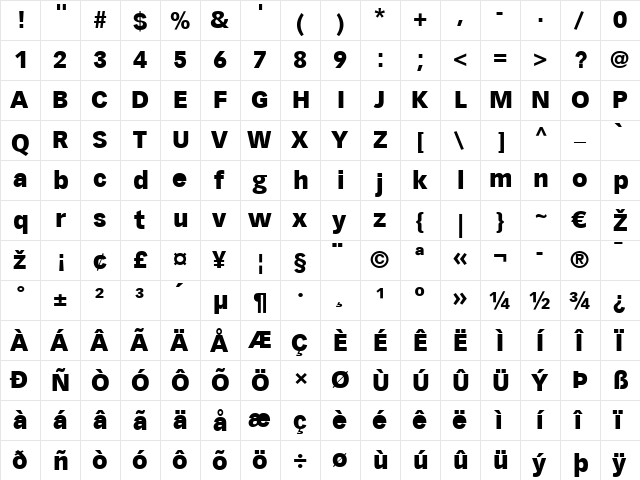
Vectora LT Roman Bold
Design Context for Vectora LT Roman Typeface
Vectora LT Roman offers clean, dependable letterforms without strong stylistic allegiance, making it a practical choice for designers who need flexibility. The heavy weight commands attention and anchors typographic hierarchies.